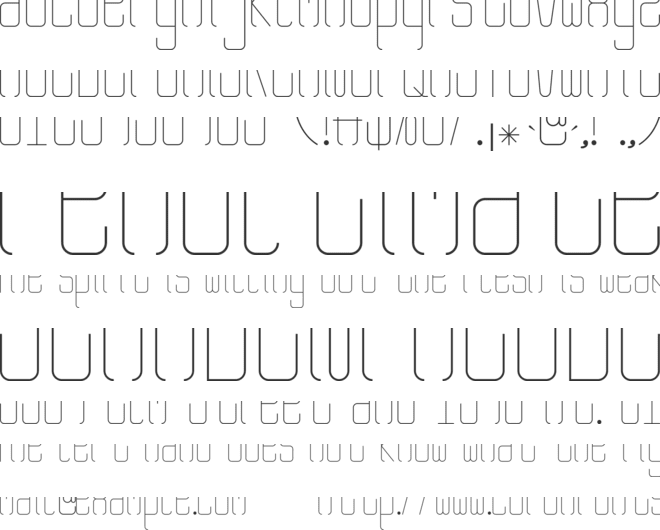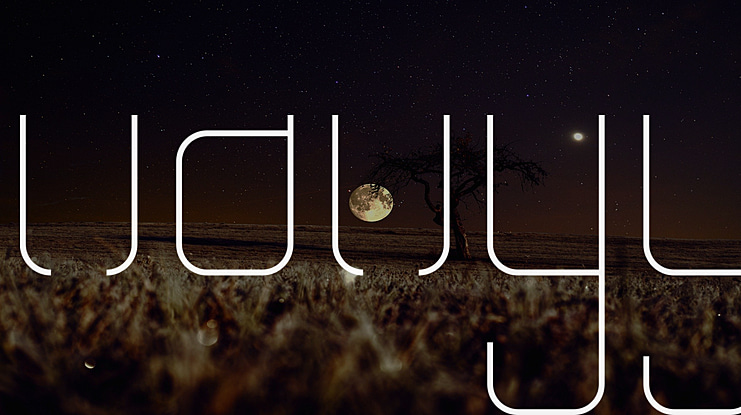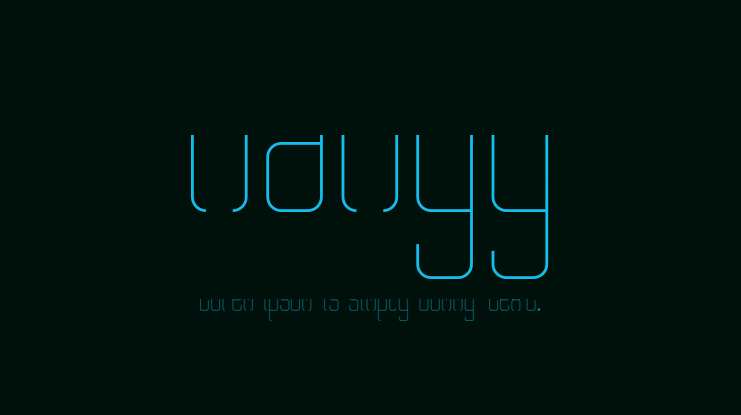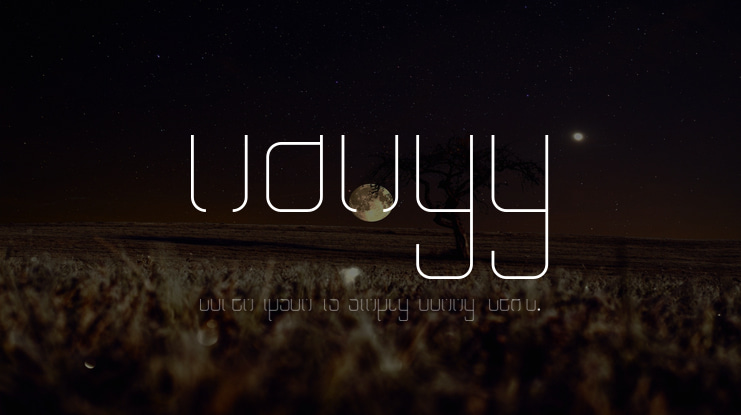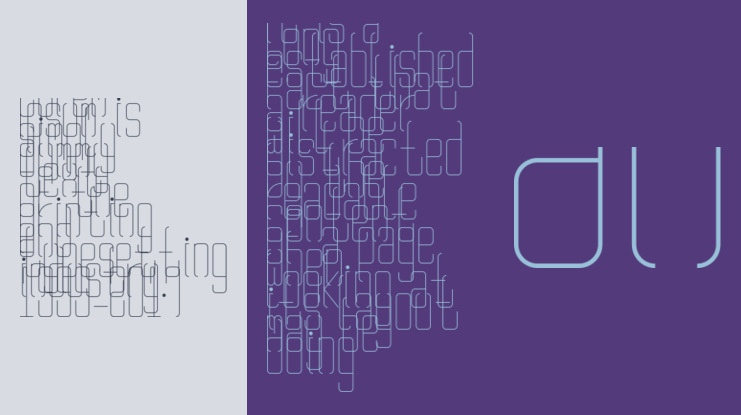
Rangy Font
M Salman Shahzad
Rangy is an experimental free for commercial and personal use typeface designed for titles of fashion magazines and cosmetics products.